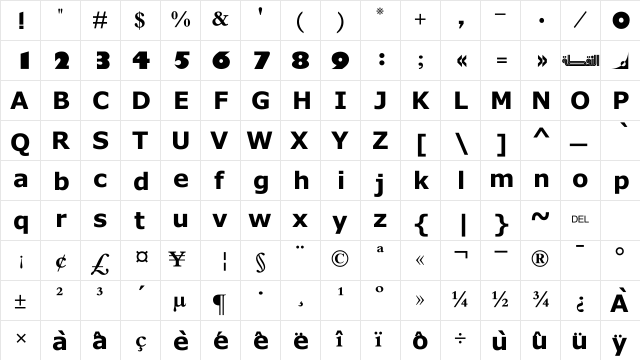
Motken noqta Regular
Design Context for Motken noqta Typeface
Motken noqta takes a measured approach to typography — its balanced proportions and neutral character make it a reliable workhorse for both digital and print work.